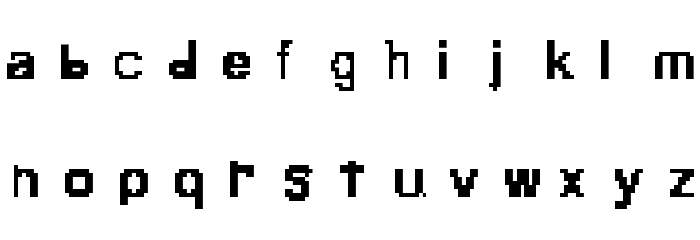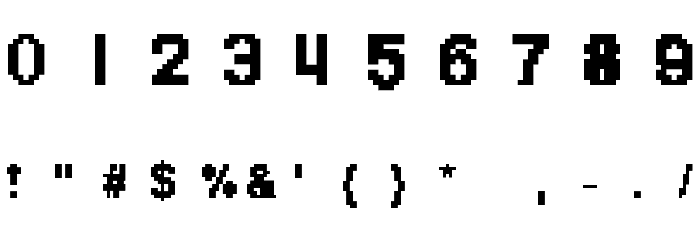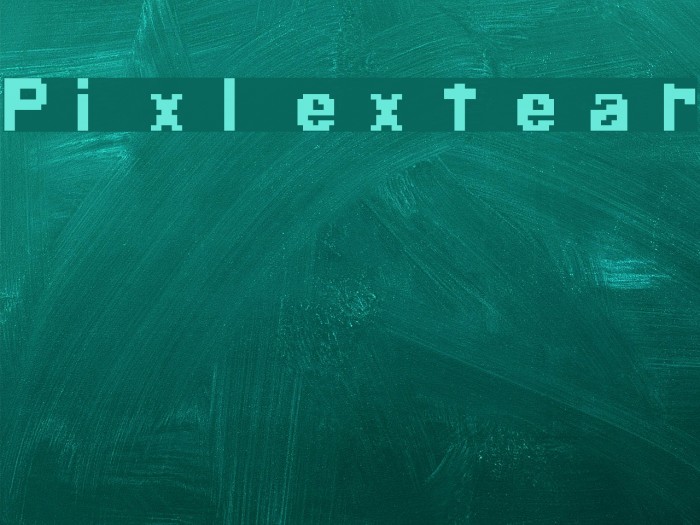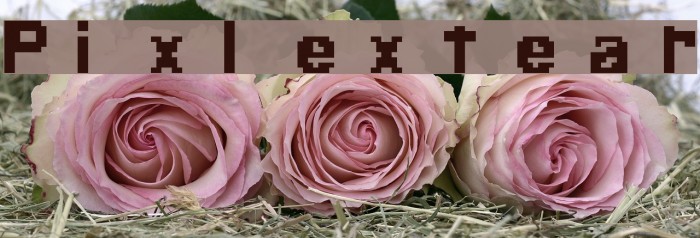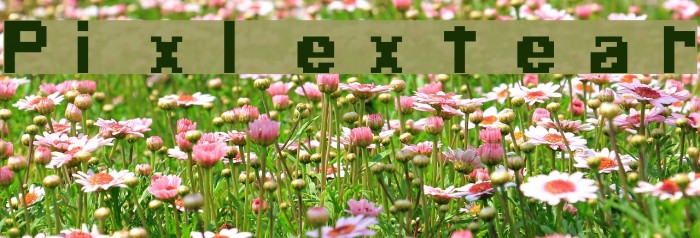
Pixlextear Font
This font features a pixelated, blocky design reminiscent of early digital displays and retro video games. Each character is composed of small square blocks, giving it a distinctly digital and geometric appearance. The uppercase and lowercase letters maintain a consistent height, with minimal differentiation in size, enhancing its uniformity. Numbers and special characters follow the same pixelated style, ensuring a cohesive look across all glyphs. The font's simplicity and clarity make it ideal for projects that aim to evoke nostalgia or a tech-inspired aesthetic. Its bold, straightforward lines ensure readability, even at smaller sizes, while the pixelated nature adds a unique charm.
A pixelated, blocky font inspired by retro digital displays.
- Proposed Projects: Ideal for video game design, tech-themed posters, retro websites, and digital art projects.
- Overall Style: Retro, Digital
- Use Case: Headlines, Logos, Digital displays